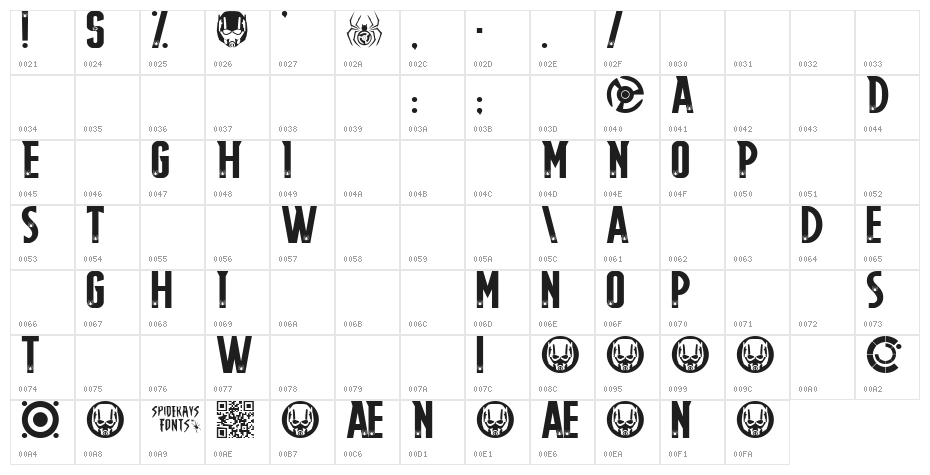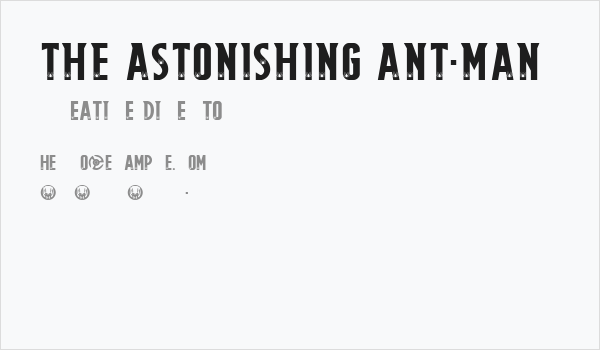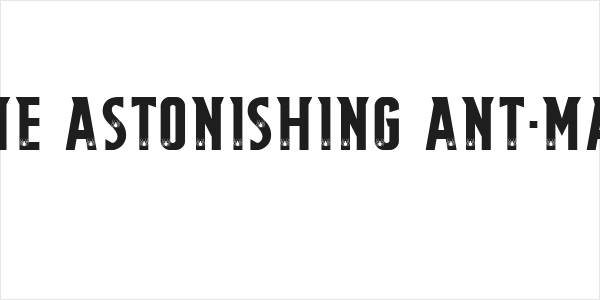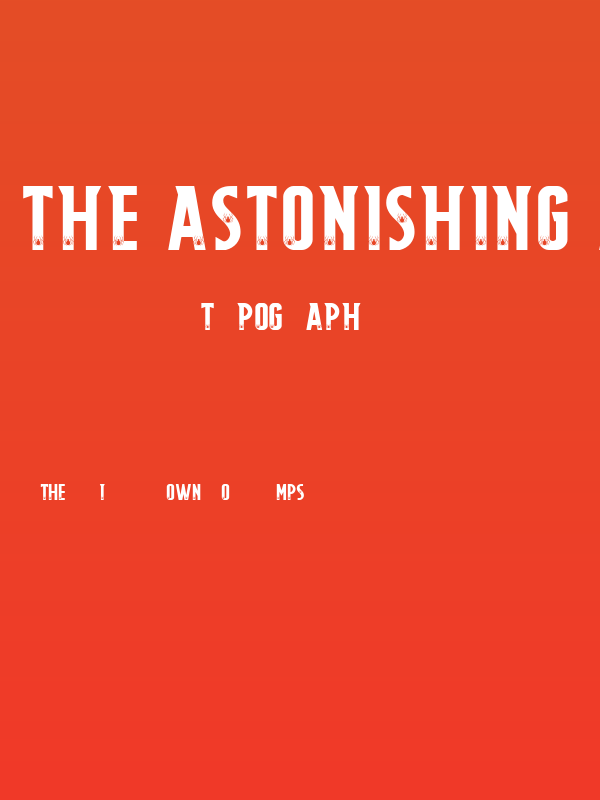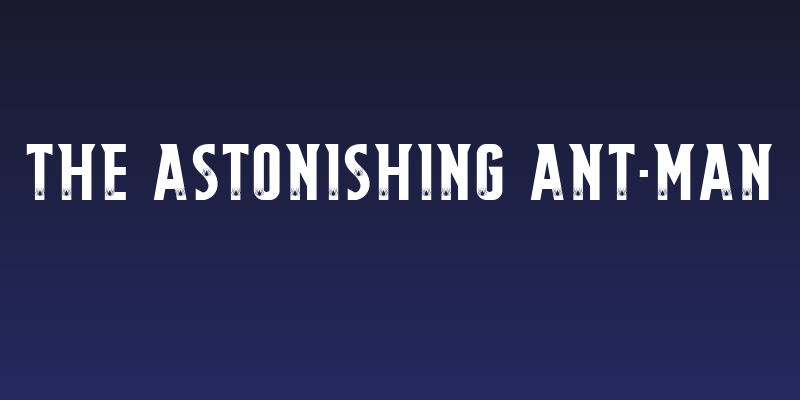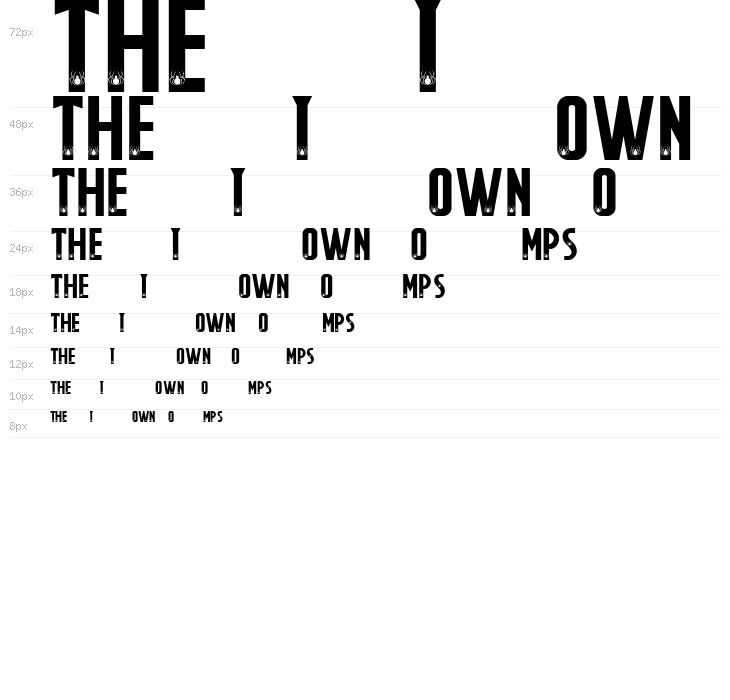
THE ASTONISHING ANT-MAN Font
THE ASTONISHING ANT-MAN Description
This font features a bold, modern design with a unique decorative element inside each character, resembling a small icon or symbol. The uppercase letters are strong and impactful, with clean lines and a slightly condensed form. The lowercase letters maintain the same stylistic approach, ensuring consistency throughout. The numbers and special characters are designed with the same attention to detail, incorporating the decorative symbols seamlessly. This font is eye-catching and ideal for projects that require a distinctive and memorable typeface.
The Astonishing Ant-Man
| Proposed Projects | Ideal for comic book titles, movie posters, branding for entertainment products, and any project needing a striking and memorable typeface. |